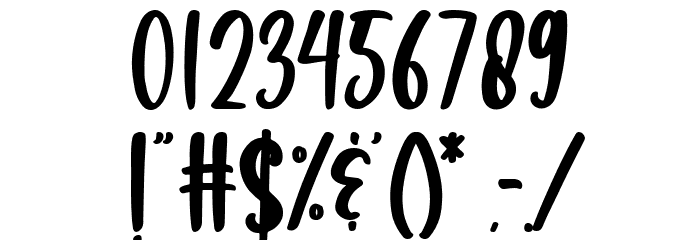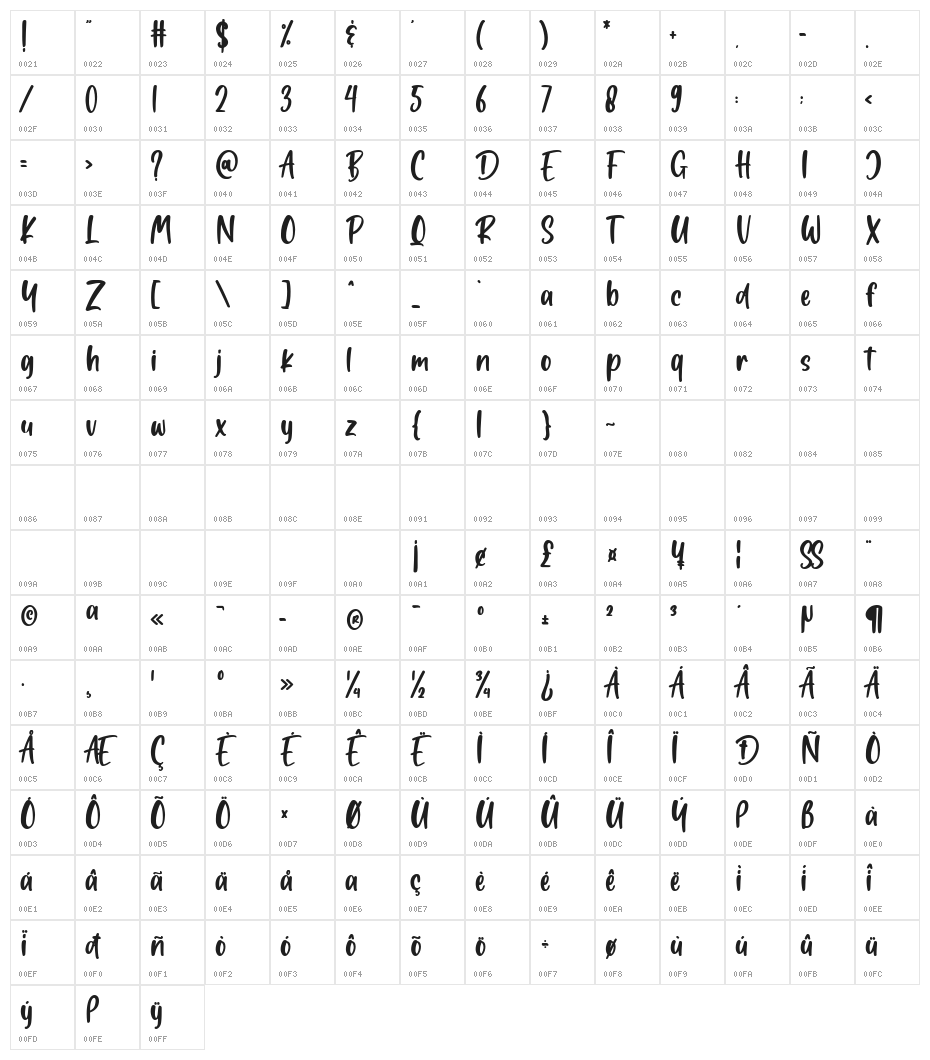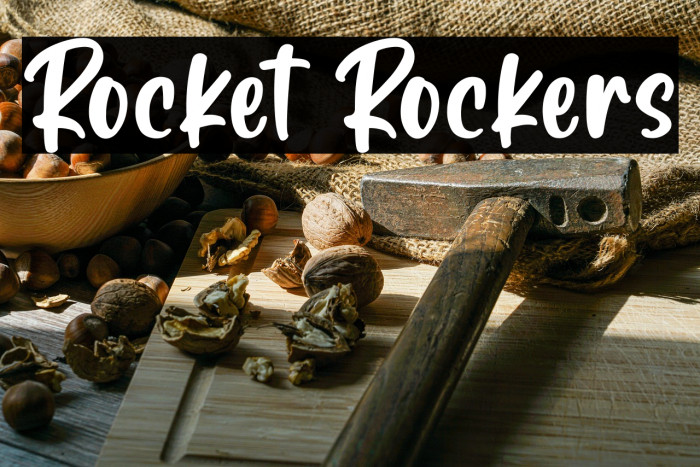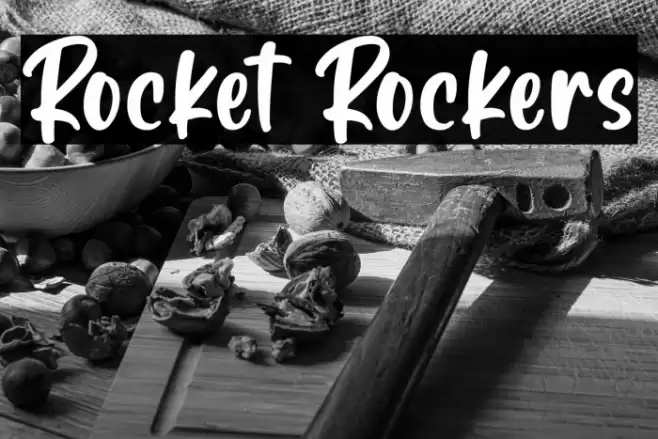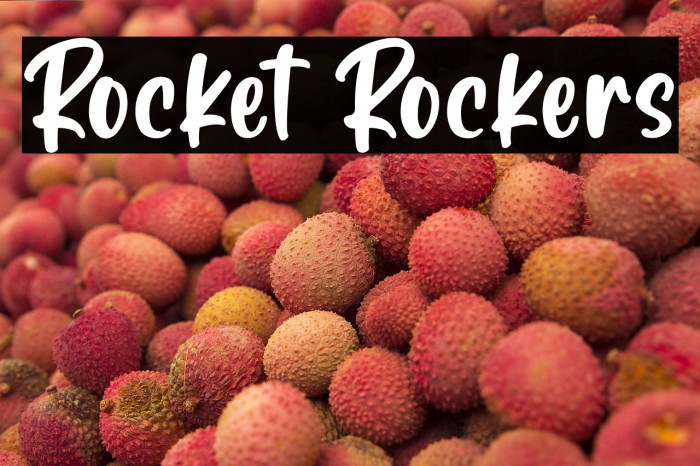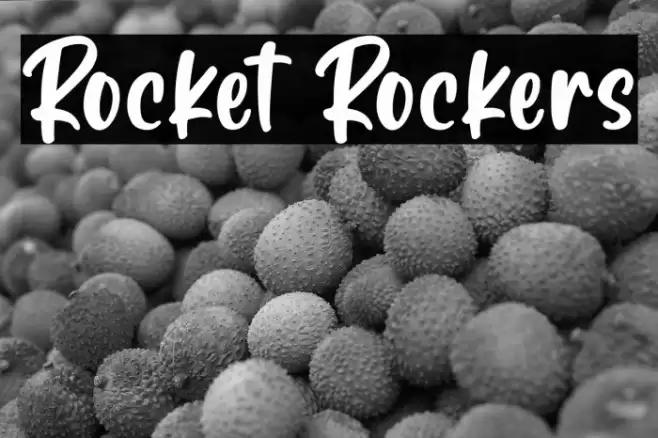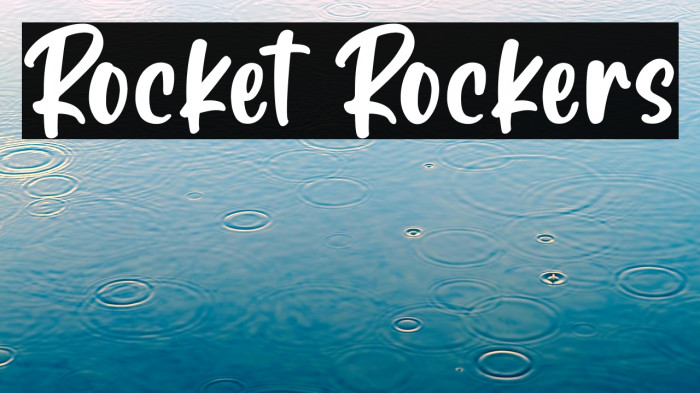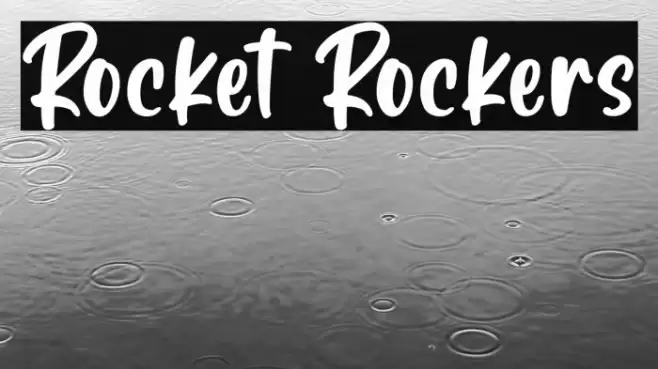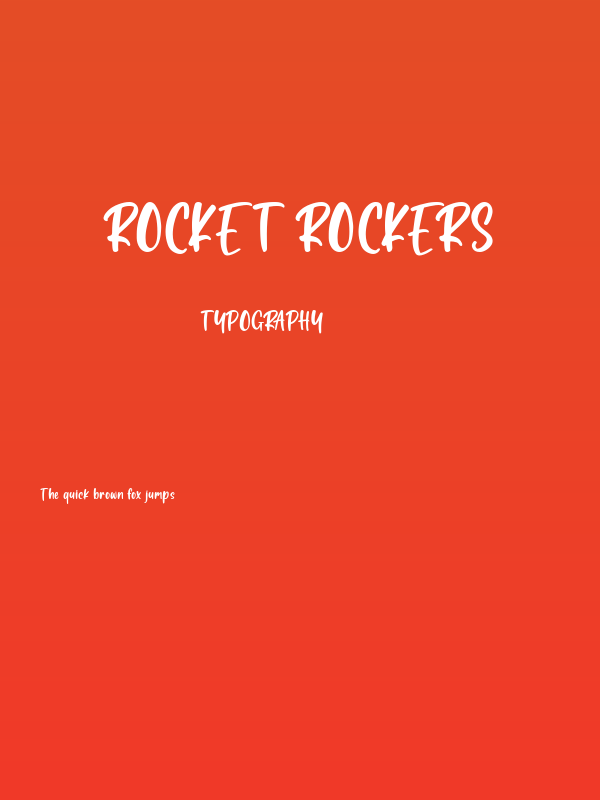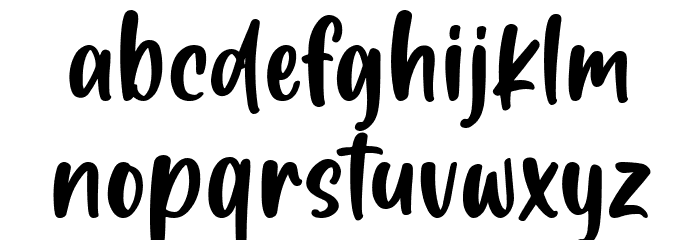
Rocket Rockers Font
Rocket Rockers Description
This font features a bold and energetic handwritten style, characterized by its thick strokes and playful curves. The uppercase letters are tall and slightly narrow, with a consistent flow that adds a sense of movement and dynamism. The lowercase letters maintain a similar style, with rounded edges and a casual, friendly appearance. The numbers are bold and clear, making them easily readable. Special characters are creatively designed, maintaining the overall playful aesthetic. This font is perfect for projects that require a lively and informal touch, such as posters, invitations, or branding materials that aim to convey a sense of fun and creativity.
| Overall Style | Playful, Energetic, Casual |
| Proposed Projects | Ideal for posters, invitations, branding, and any project needing a fun, informal touch. |